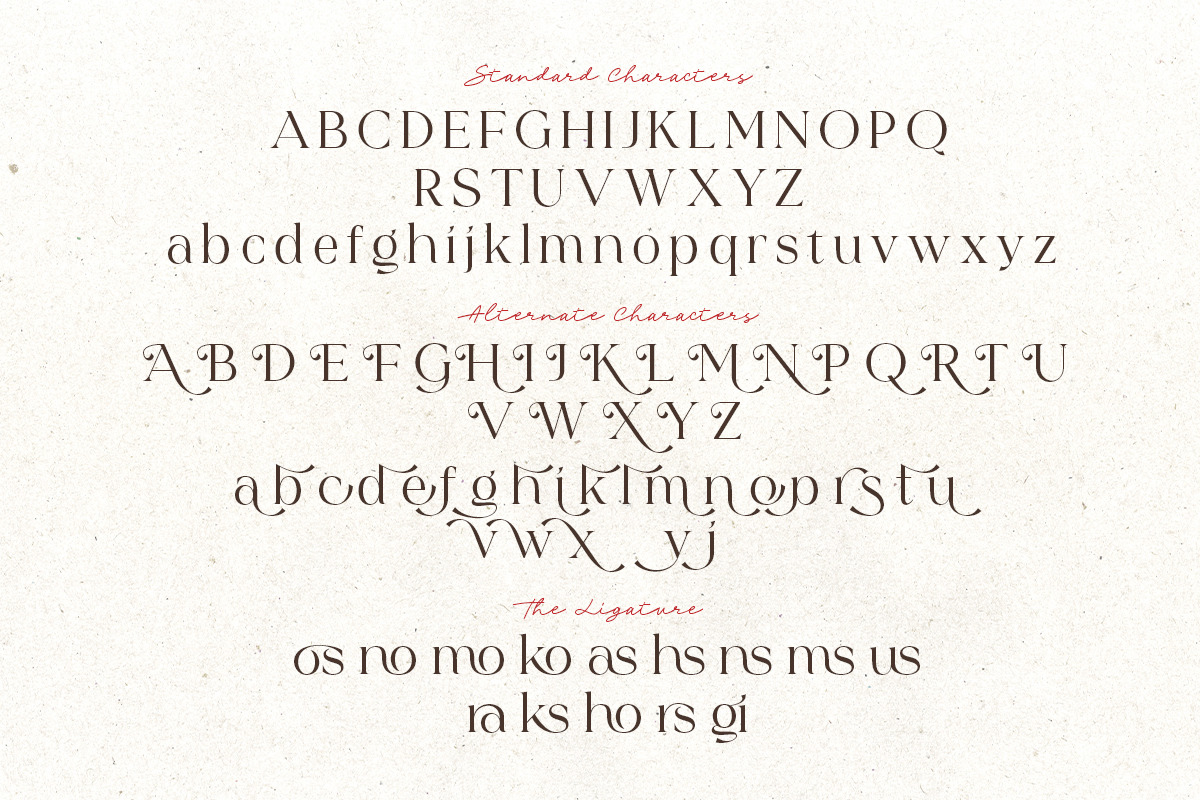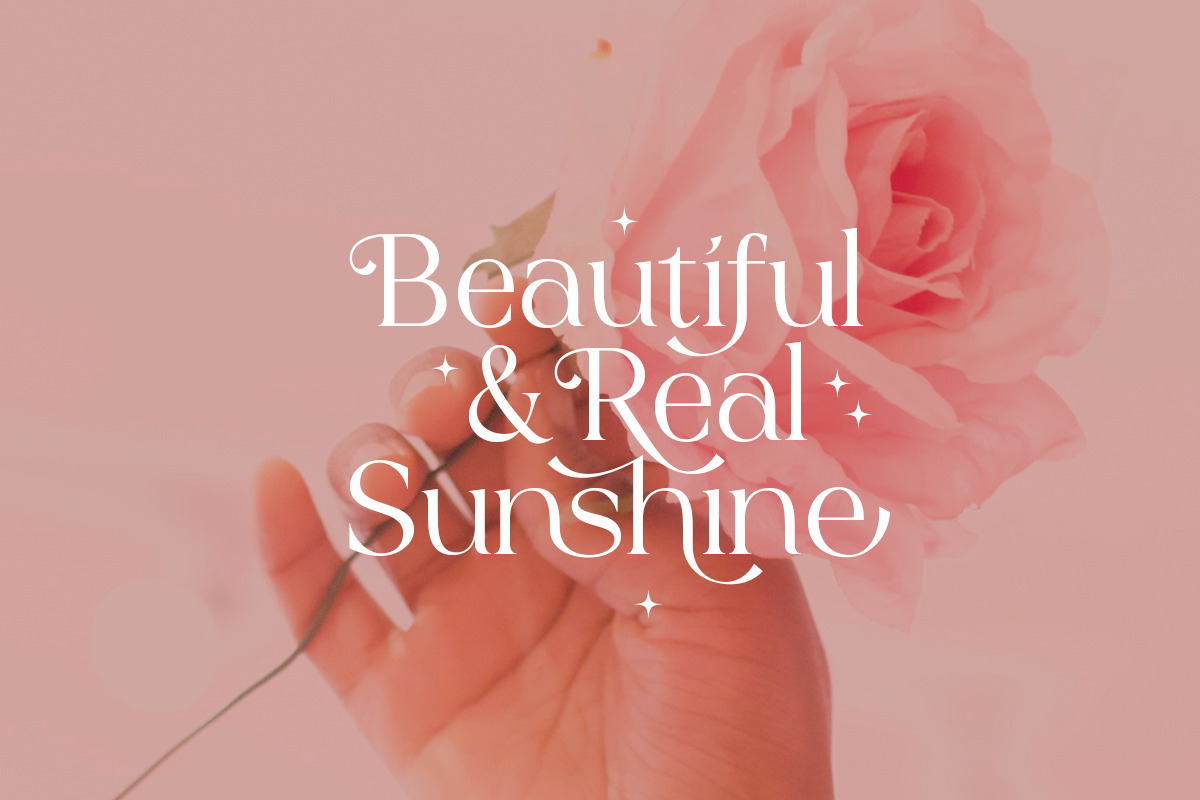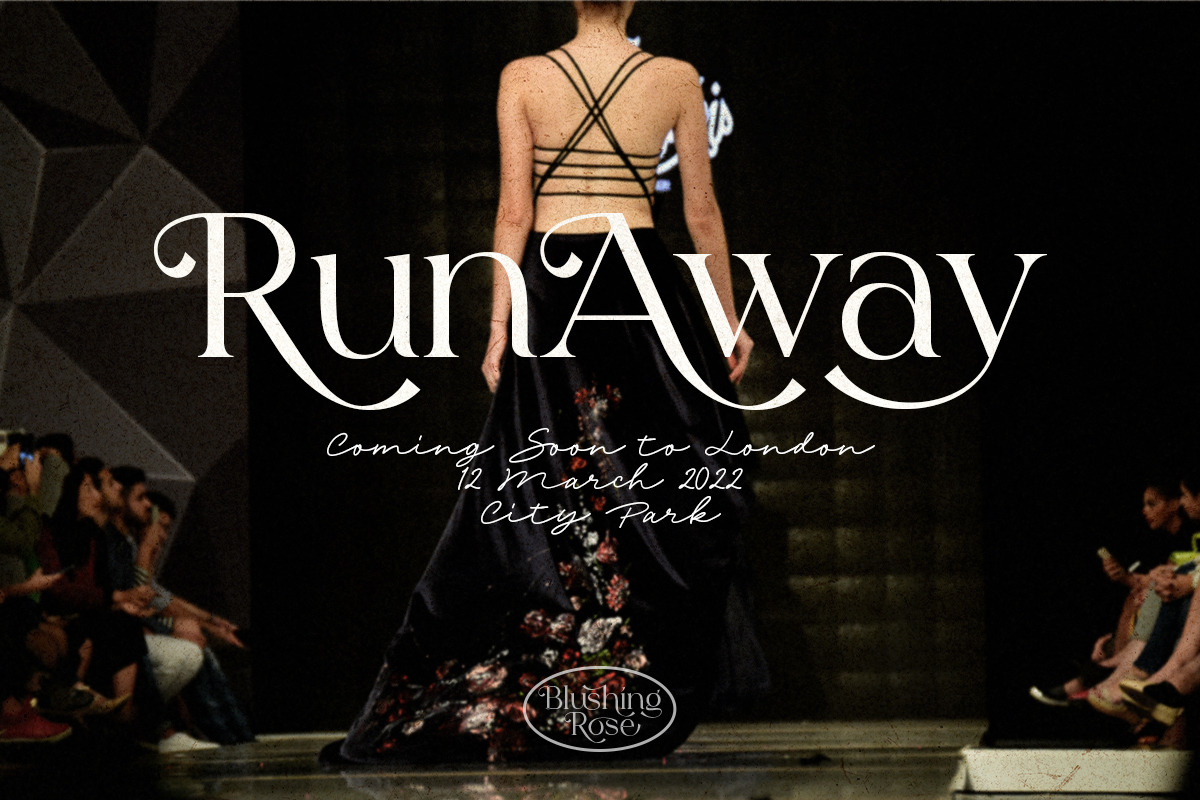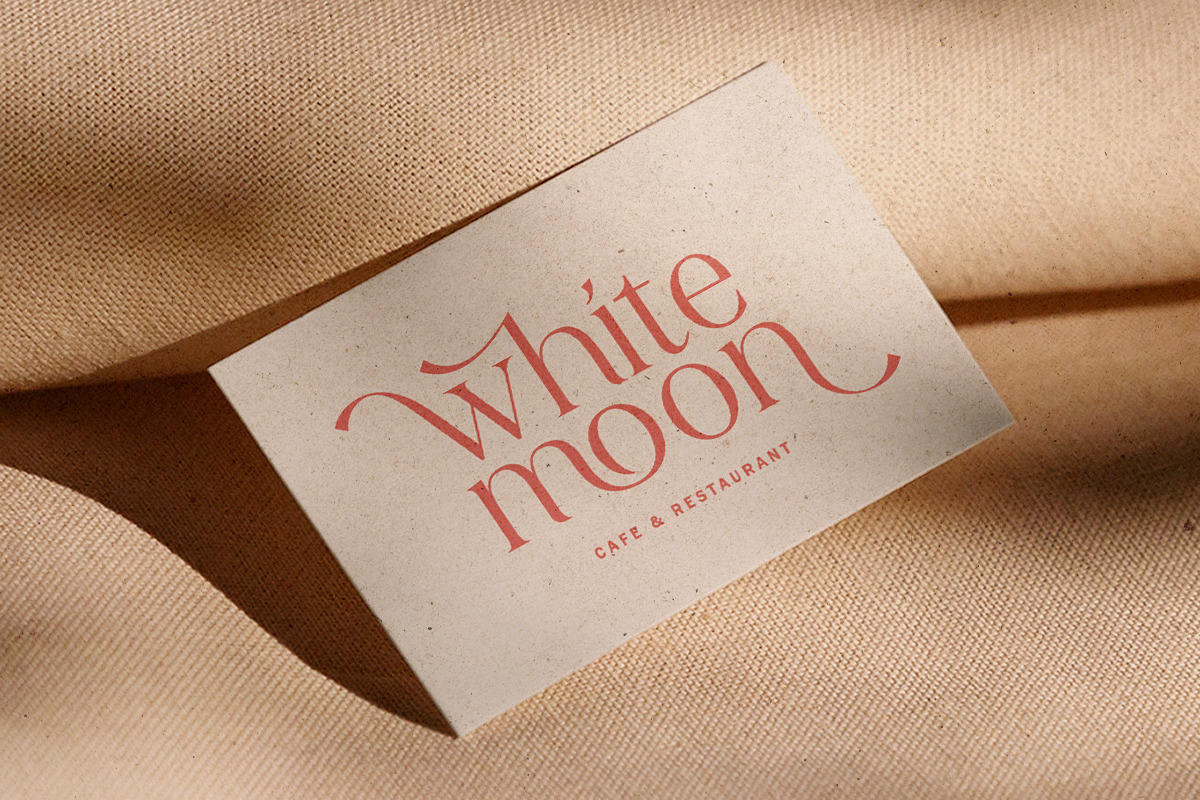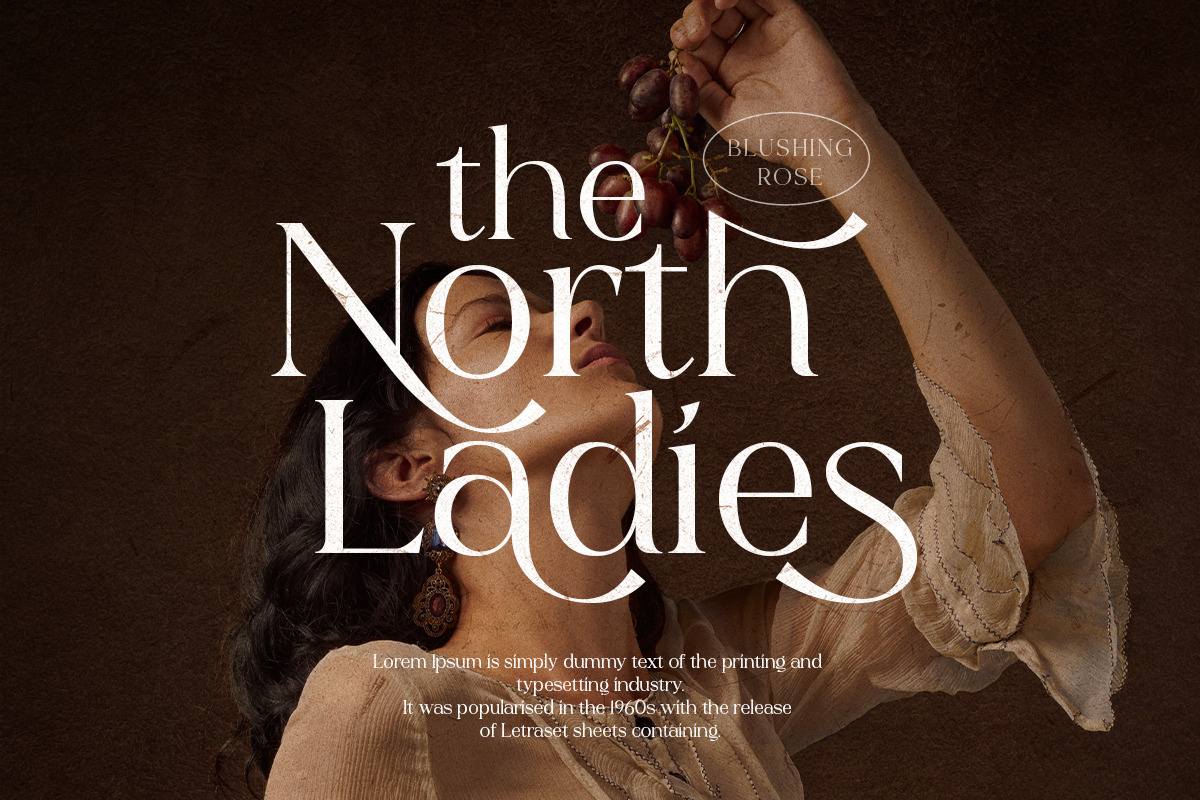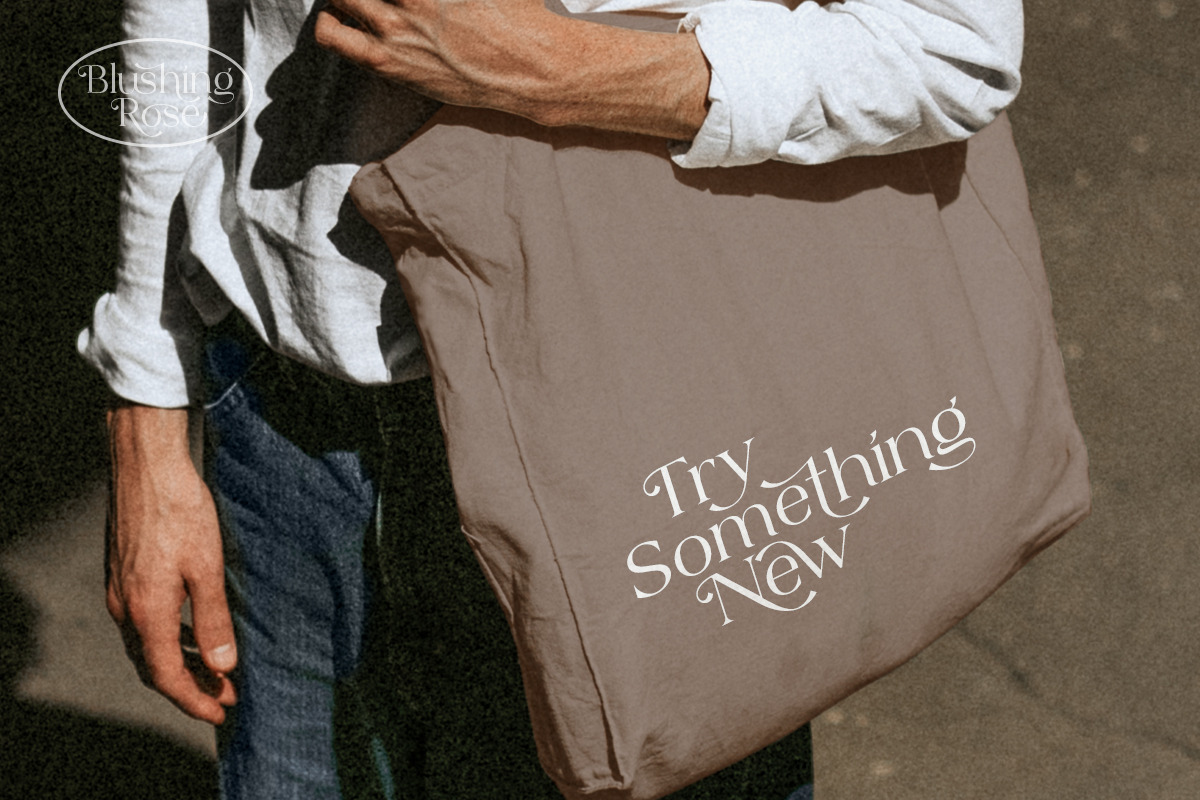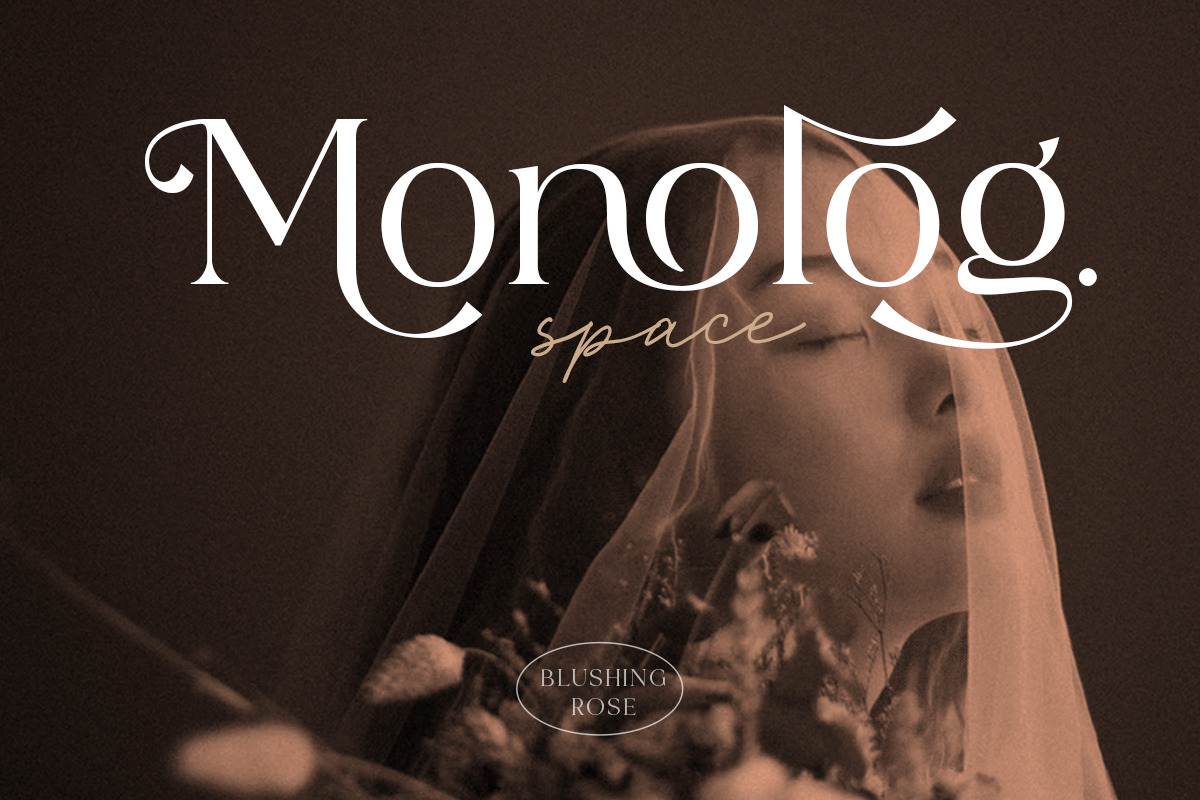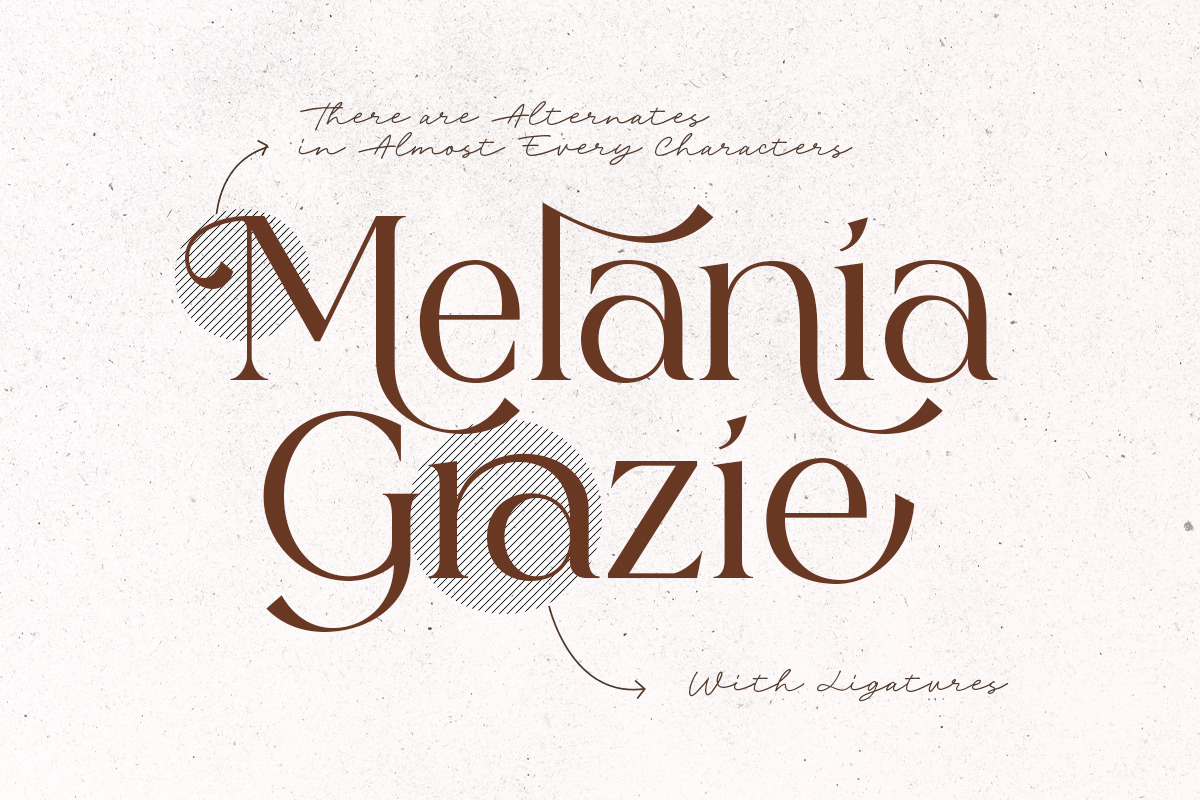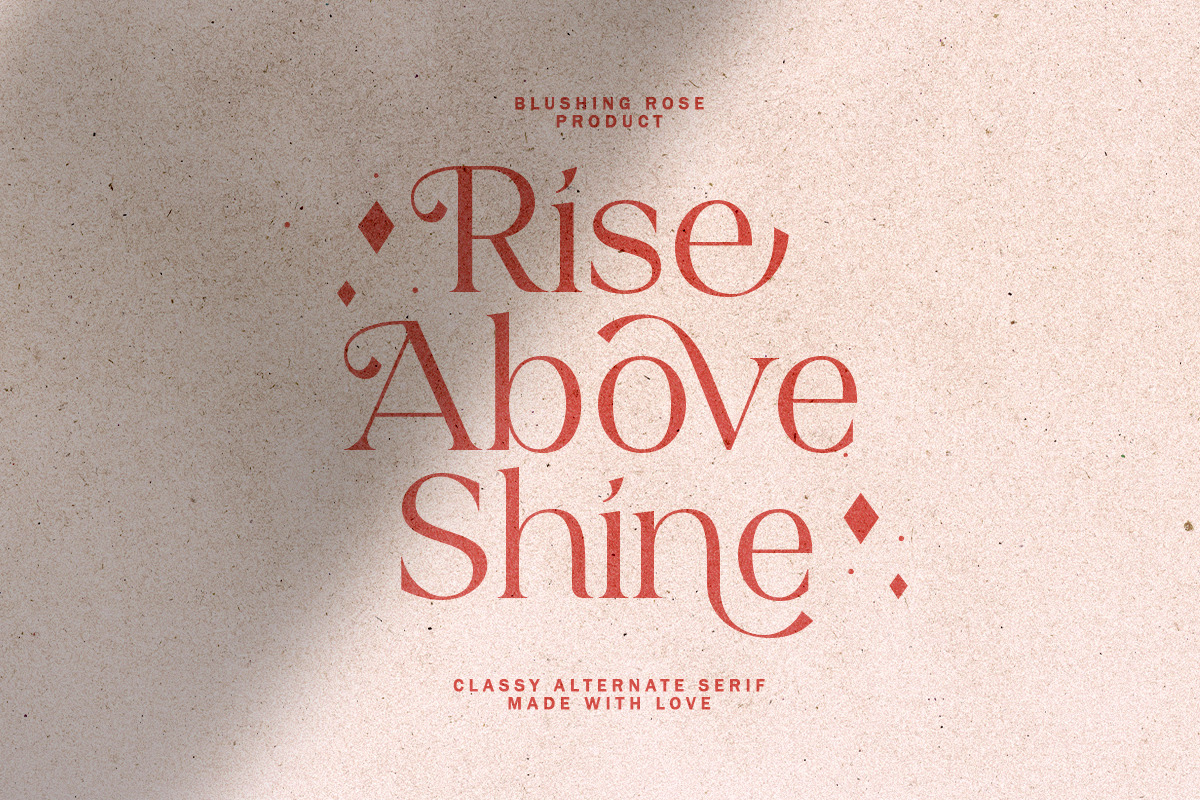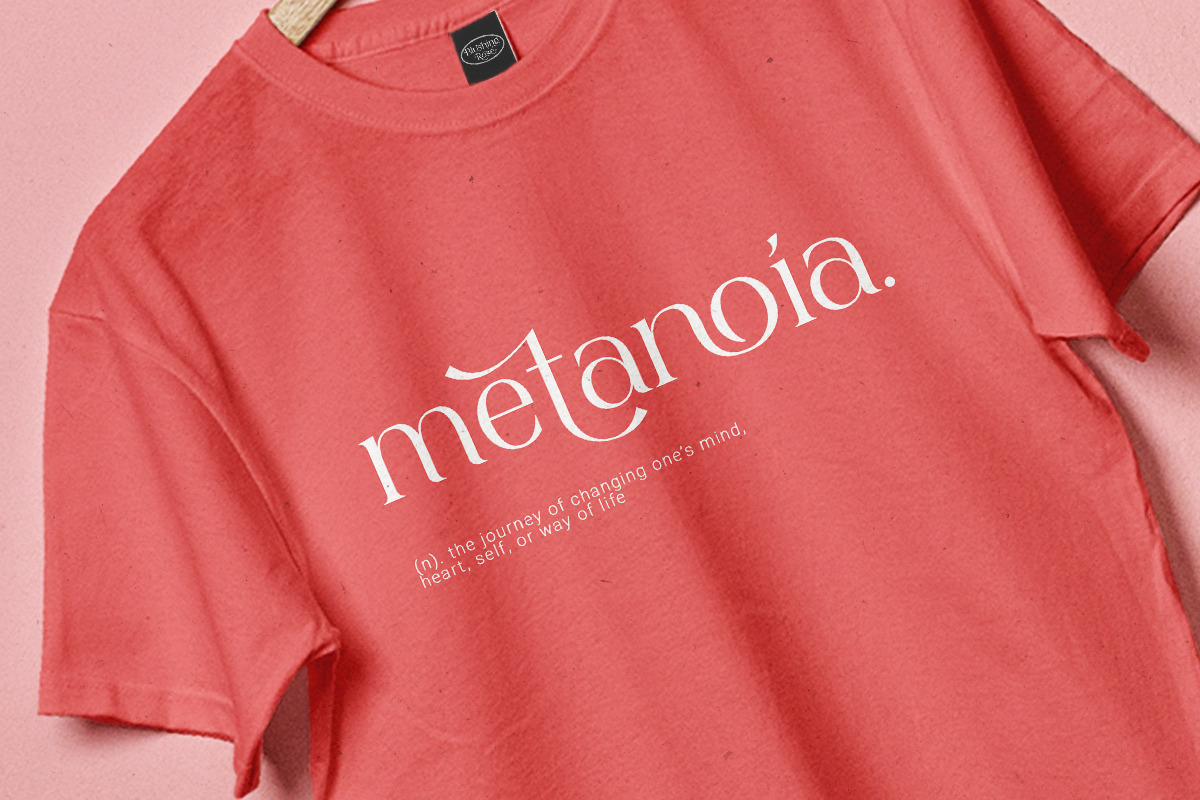
Blushing Rose - Stylish Modern Serif
Introducing, Blushing Rose - A Stylish Modern Serif with Ligatures and Alternates
Blushing Rose is a stylish and modern serif with a bunch of alternates for each characters and ligatures that will make your presentation or logo even more stunning and attractive! You can use this font for unlimited purpose such as wedding invitation, branding, or even your own logo. The ligatures will make your logo more advanced without many steps. This fonts support Multi Language.
- Extended Multi language
- Alternates for each characters